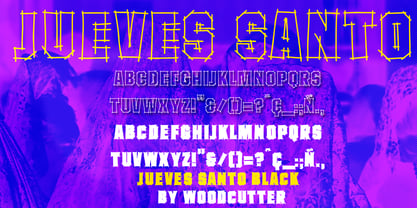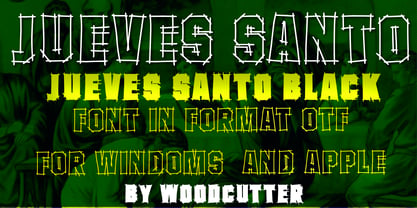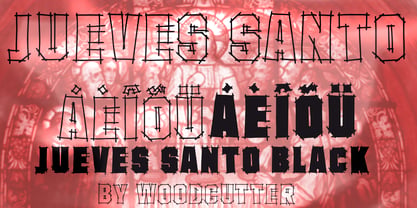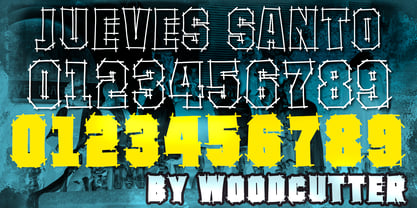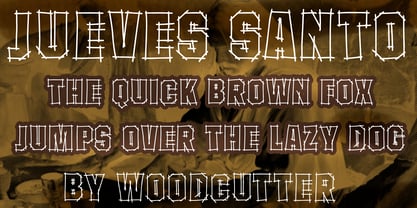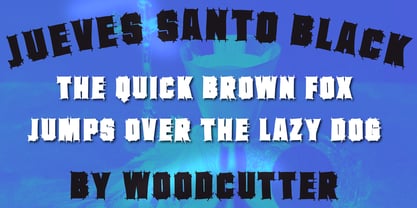
Jueves Santo
The Jueves Santo Font Family was designed by Jordi Manero and published by Woodcutter. Jueves Santo contains 1 styles. More about this family
Jueves Santo is a typeface family with a strong personality, combining bold visual presence with chaotic and expressive energy. Designed in uppercase with full accent support, this font is built from loose, irregular, and seemingly impulsive strokes, as if each character had been drawn quickly and without constraints, creating a direct and tension-filled graphic language.
Its forms are robust yet unstable, with lines that vibrate, intersect, and slightly deform, generating constant movement. This approach subtly recalls a college-style aesthetic, with an experimental, urban feel that blends spontaneity and visual strength. The letters do not aim for perfection but for impact and character, resulting in lively compositions with a distinct identity.
The main version, Jueves Santo, features outline letterforms, showing only their structural lines. This open construction allows for lighter, more versatile compositions, ideal for layering and dynamic visual arrangements where negative space plays a key role.
In contrast, Jueves Santo Black offers a solid interpretation, with fully filled black letters that increase visual weight and dominance. This version is perfect for bold headlines and high-impact applications.
Jueves Santo is ideal for posters, editorial design, music, experimental branding, and any project seeking energy, controlled chaos, and raw graphic expression.